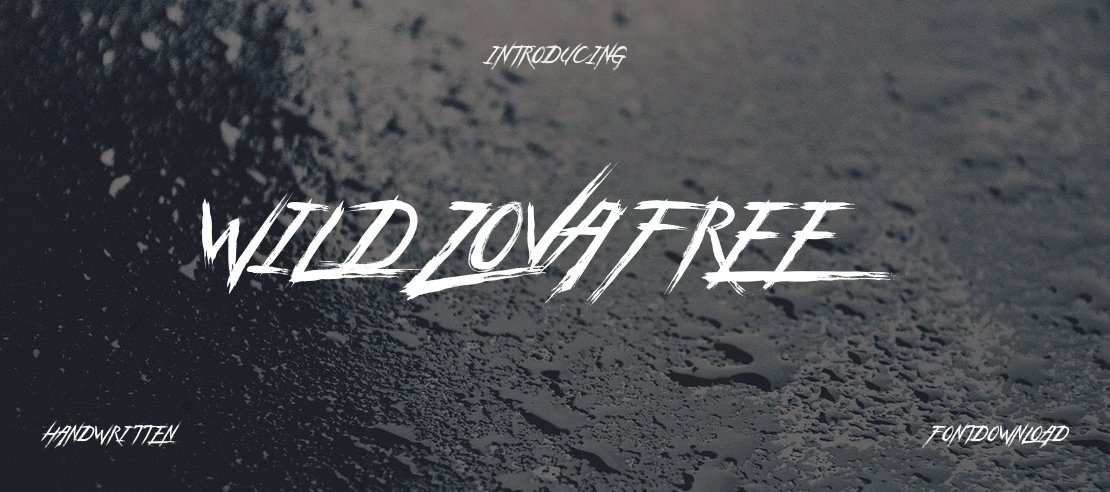
The reason Wild Zova Font is genuinely exciting is its chaotic, raw texture created by authentic paintbrush strokes, giving it a powerful, untamed, and visceral energy. Inspired by the "darkness world" of fantasy creatures, the font successfully fuses brush calligraphy with a grungy, messy style. This unique blend ensures your titles are both expressive and visually disruptive, immediately conveying a sense of rebellion, freedom, and bold, unfiltered creativity that cannot be ignored.
The Wild Zova Font family is exceptionally versatile for a brush script, typically consisting of five components: the primary Wild Zova Regular (Script) style, a Wild Zova Sans counterpart, a Wild Zova Wide style (often available as a free sample), and Wild Zova Swashes to add decorative elements. This multi-style family guarantees the flexibility needed for detailed branding. For a raw and aggressive script that demands attention, secure your Wild Zova Font Free Download today.